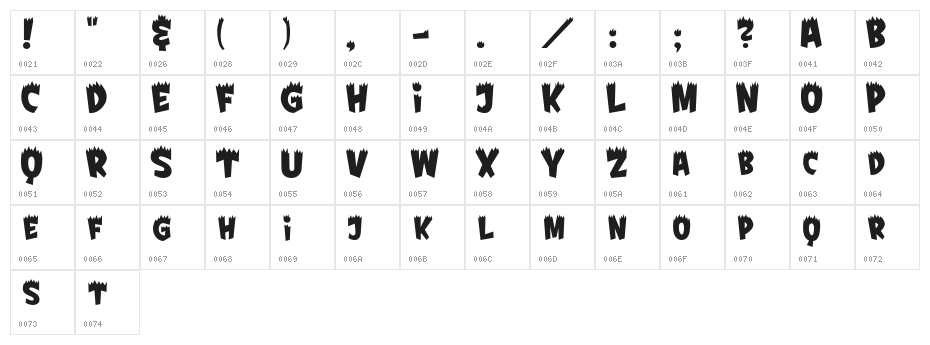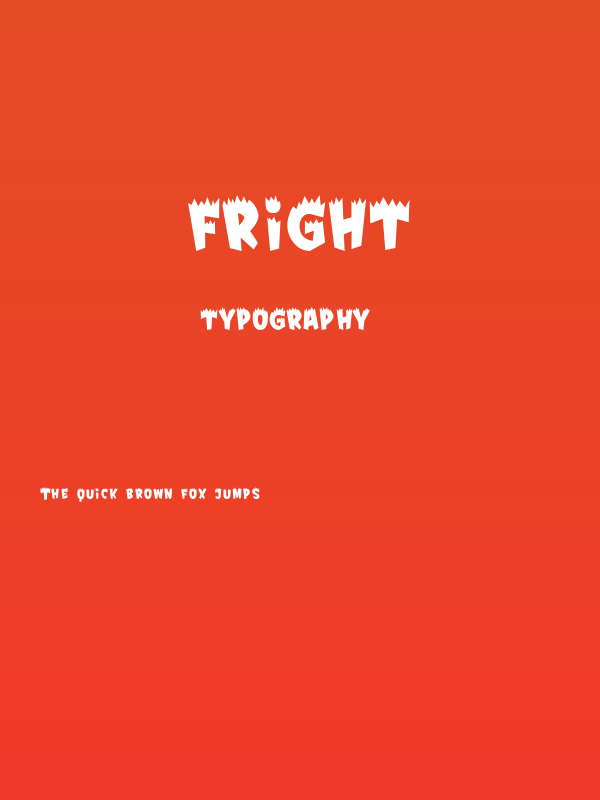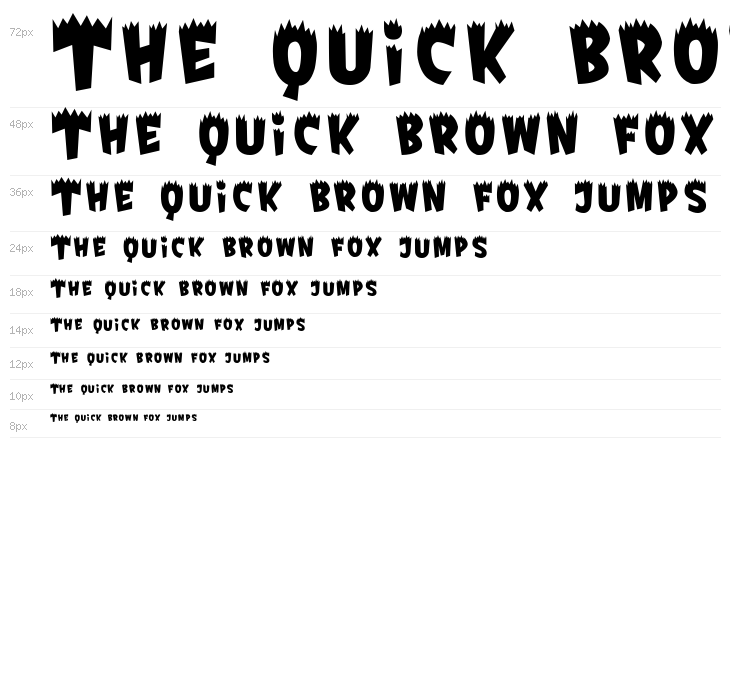
Fright Font
Fright Description
This font features a playful and spooky design, characterized by jagged edges and irregular shapes that give it a unique, eerie appearance. The uppercase and lowercase letters maintain a consistent style, with exaggerated, sharp angles that evoke a sense of movement and energy. The numbers and special characters follow the same design principles, ensuring a cohesive look across all elements. This font is ideal for creating a dramatic and eye-catching effect, perfect for themed events or projects that require a touch of the unconventional.
| Use Case | Headlines, Posters, Themed Events |
| Proposed Projects | Ideal for Halloween-themed designs, party invitations, posters, and any project requiring a dramatic, eerie touch. |